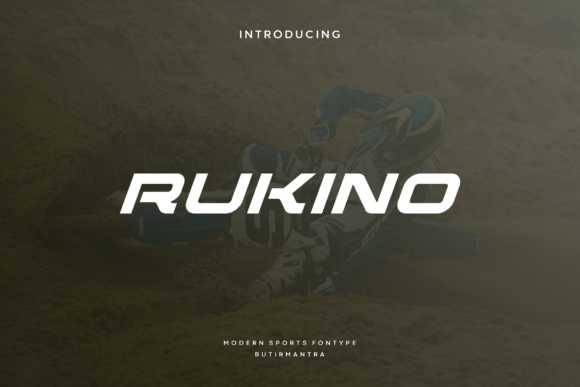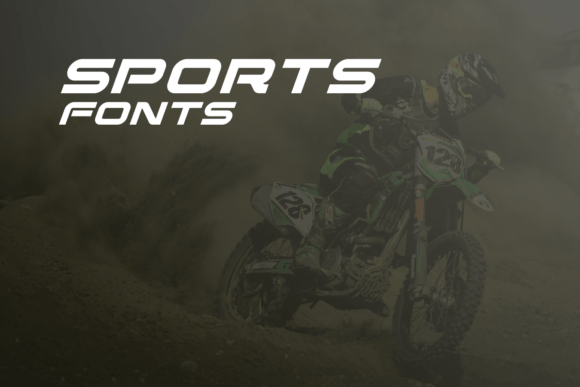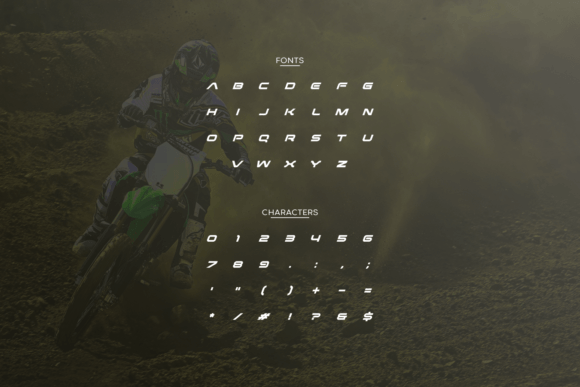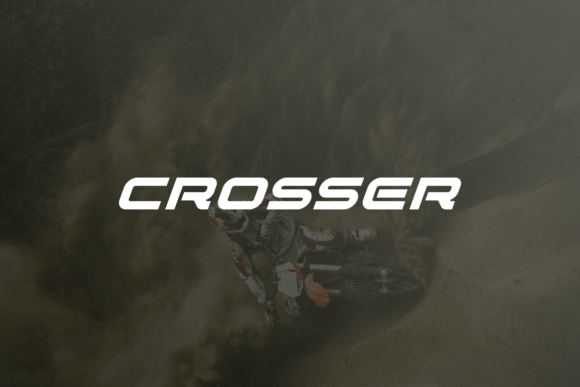
Rukino Font: A Bold Sans Serif for Modern Sport & Logo Design
About the Rukino Font
Presenting Rukino Font, a unique and stylish typeface that will make your work stand out. Rukino is a modern, sports-themed sans serif font. This font would be ideal for web design, business cards, or just about anything else that requires a unique touch.
Rukino’s strong, geometric forms make it perfect for headlines, logos, and short-form text on posters or sportswear branding. Its energetic feel is ideal for projects conveying speed, power, or competition. Avoid using it for body copy or lengthy paragraphs; its boldness can become visually fatiguing at smaller sizes.
For a balanced design, pair Rukino with a clean, neutral sans-serif like Lato for body text or a classic serif like Garamond for a touch of sophistication. This contrast creates visual harmony and prevents the design from feeling overwhelming.
Rukino’s overall personality is bold and assertive, conveying a sense of dynamism and modern energy. It’s a strong choice for brands focused on performance, technology, or active lifestyles.
Rukino Font Usage Examples
Rukino Font Example